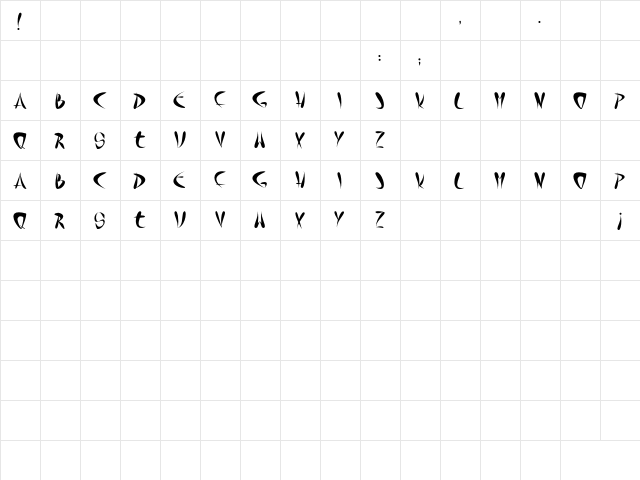
Zen Garden Regular
| Designer | Manuel Ramos |
Design Context for Zen Garden Typeface
Zen Garden is a composed and adaptable typeface that performs quietly and consistently across a wide range of design contexts.